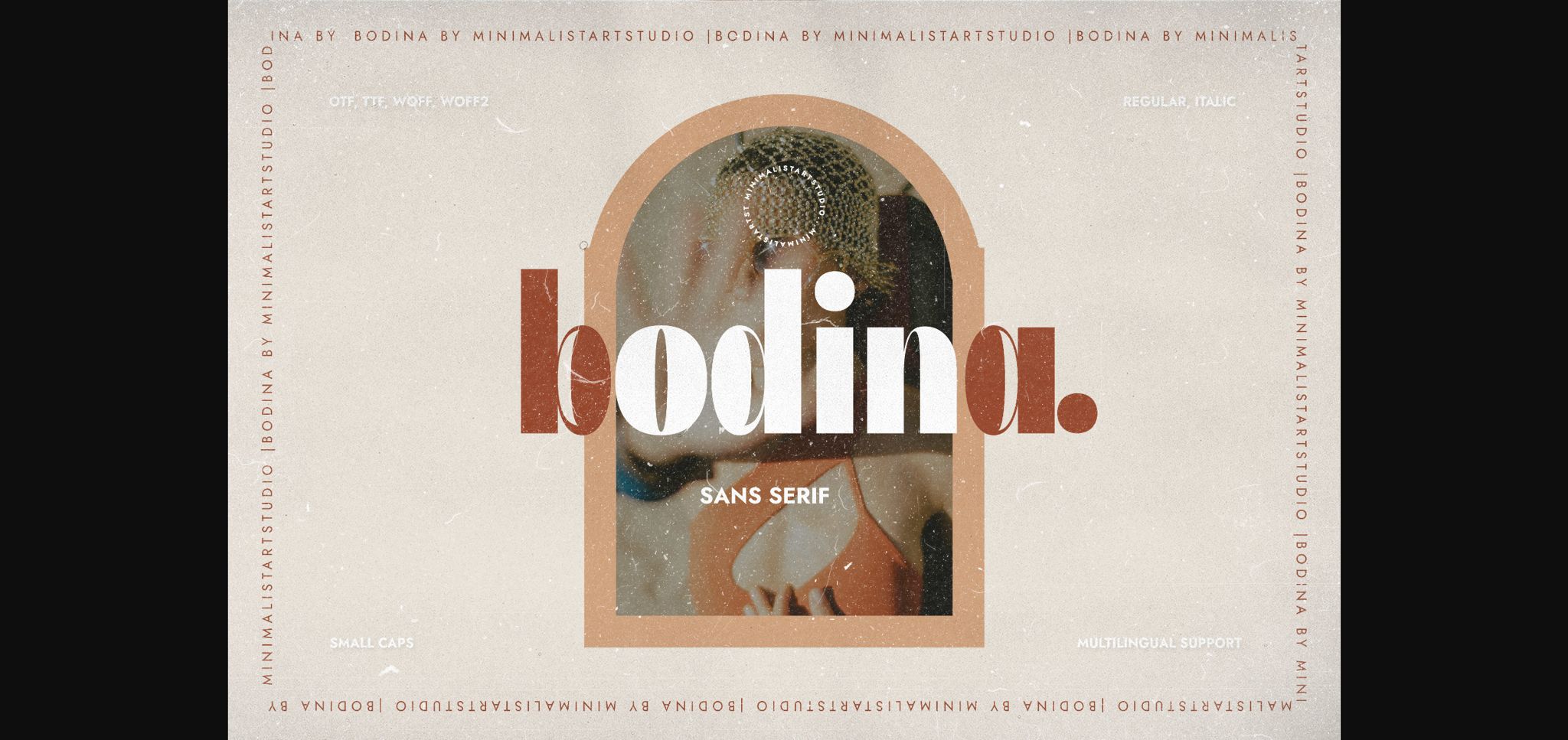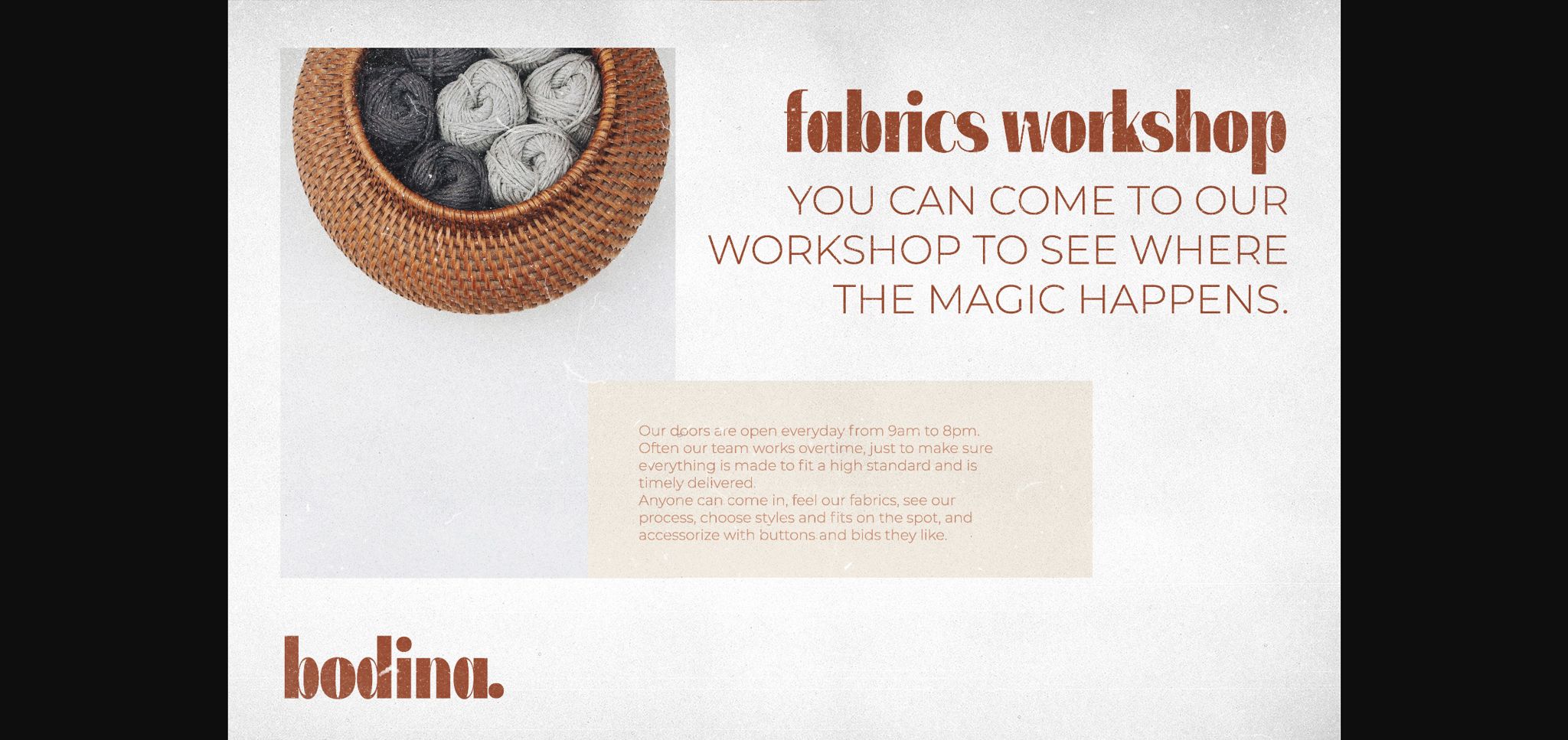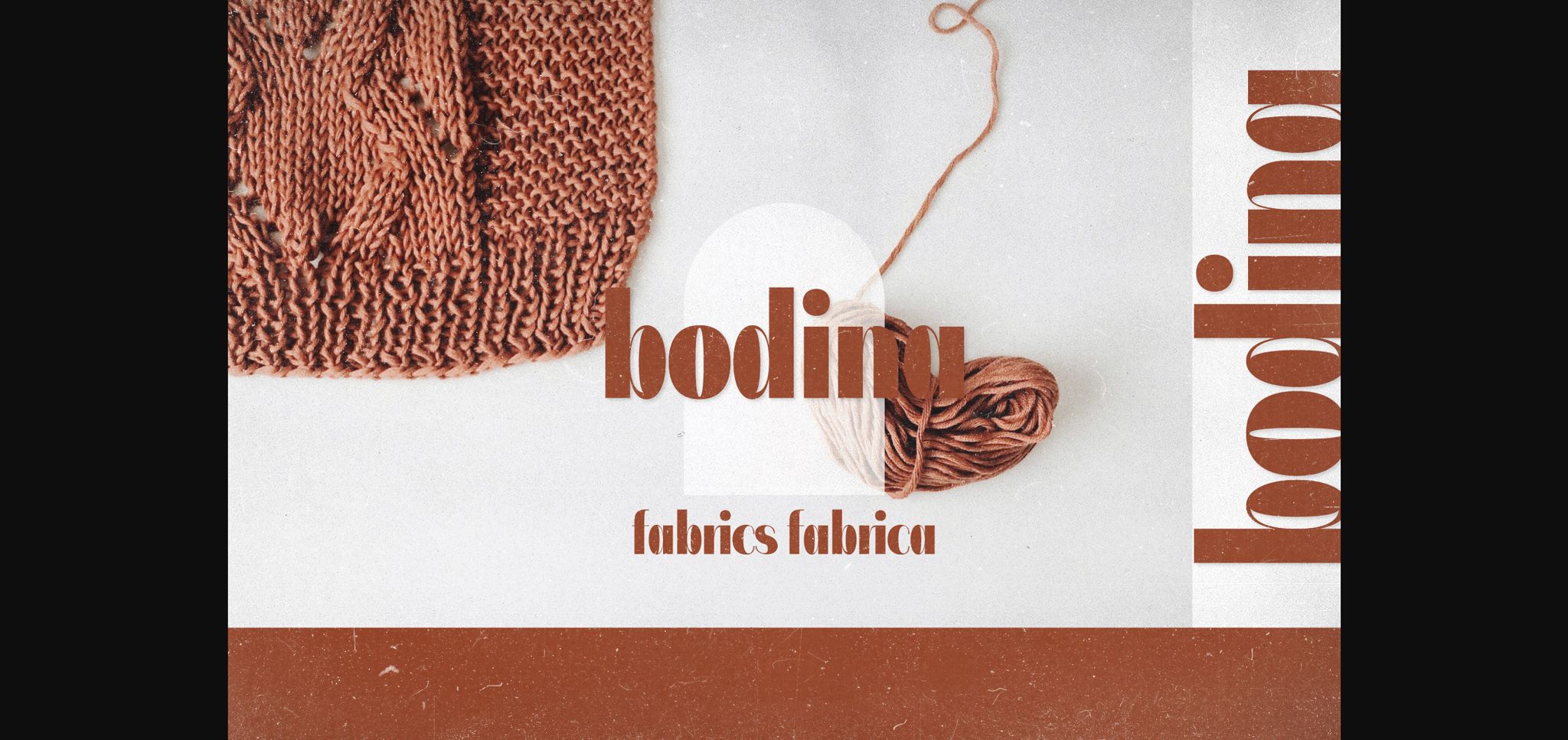
About Bodina Font
Bodina is a classy and elegant sans-serif typeface. Whether you are designing fashion posters, cosmetics packaging design, perfume packaging, brochures social posts/stories, etc, this font will add a huge value to your creations. It has a casual, yet elegant touch and will undoubtedly elevate any of your designs.